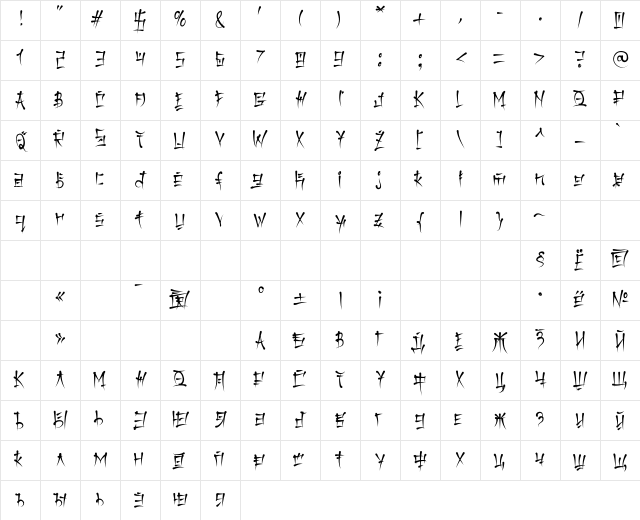
Complete Keetano Katakana Roman glyph index. Displaying only characters natively supported by Keetano Katakana Roman font.
Keetano Katakana is a composed and adaptable typeface that performs quietly and consistently across a wide range of design contexts.
Who designed the Keetano Katakana Roman font?